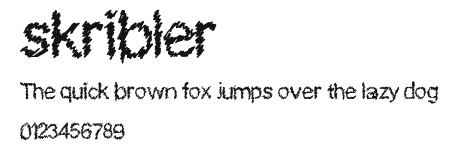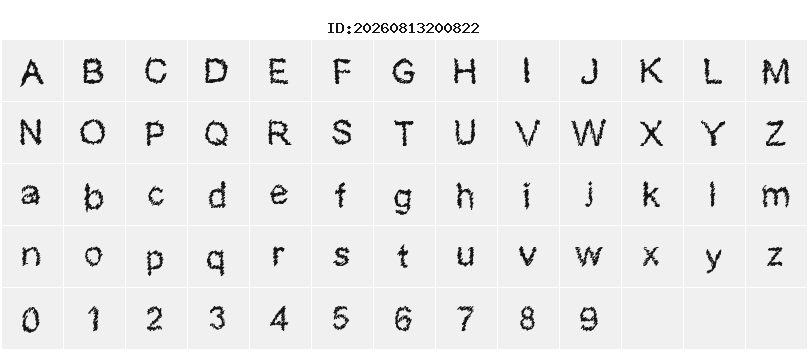
skribler .ttf
About skribler .ttf
skribler .ttf is a modern, elegant sans-serif font designed for ultimate readability and visual harmony. Perfect for branding, headlines, web design, and print materials.